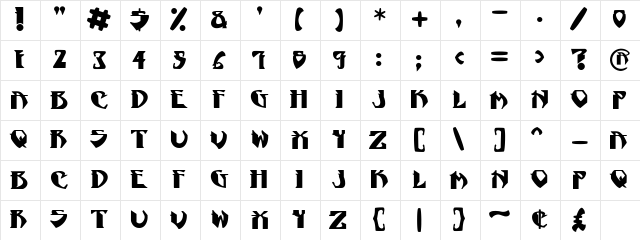
Psygnotic Regular
Foundry: Rachel Holland and Constance Taylor
Designer: Rachel Holland and Constance Taylor
Design Context for Psygnotic
Psygnotic is a composed and adaptable typeface that performs quietly and consistently across a wide range of design contexts.